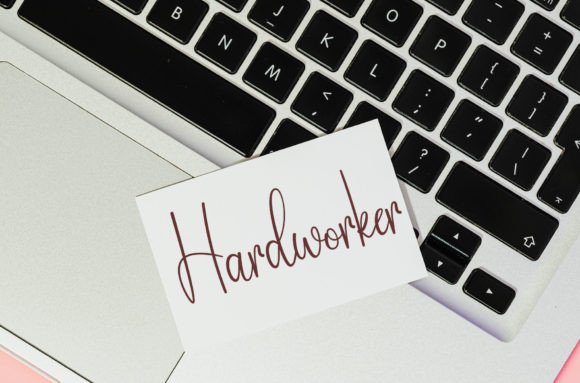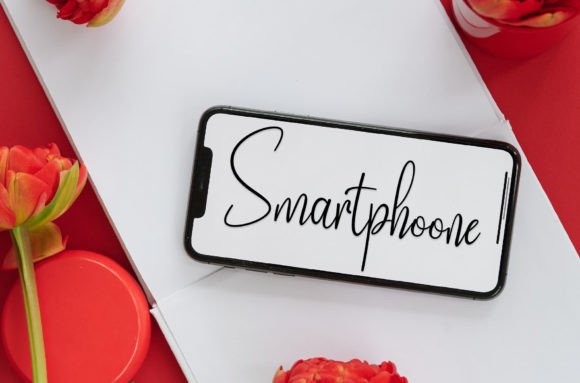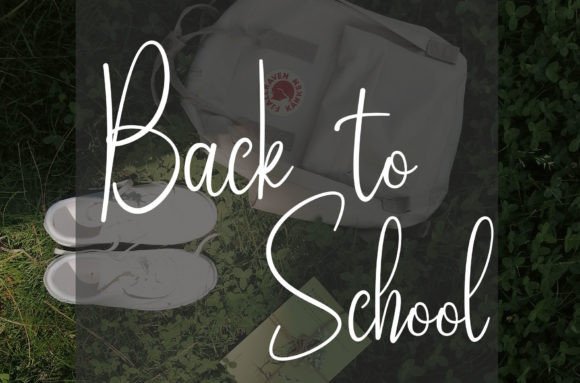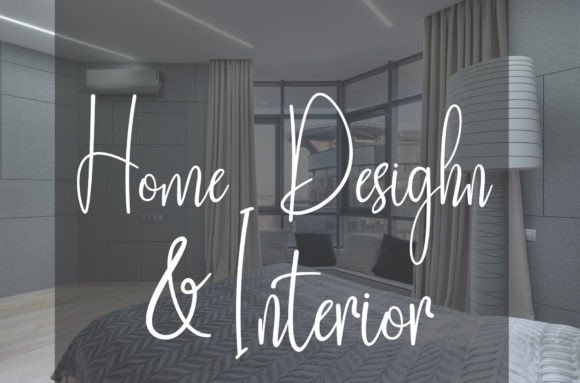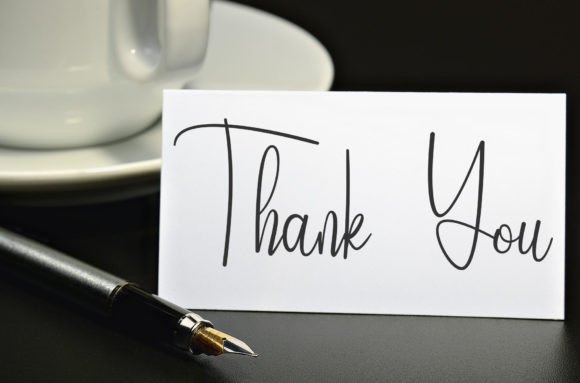
Introduction to Anathomi Font
Anathomi is a beautiful handwritten font perfect for product packaging, branding projects, magazines, social media posts, weddings, or simply used to express words over a background.